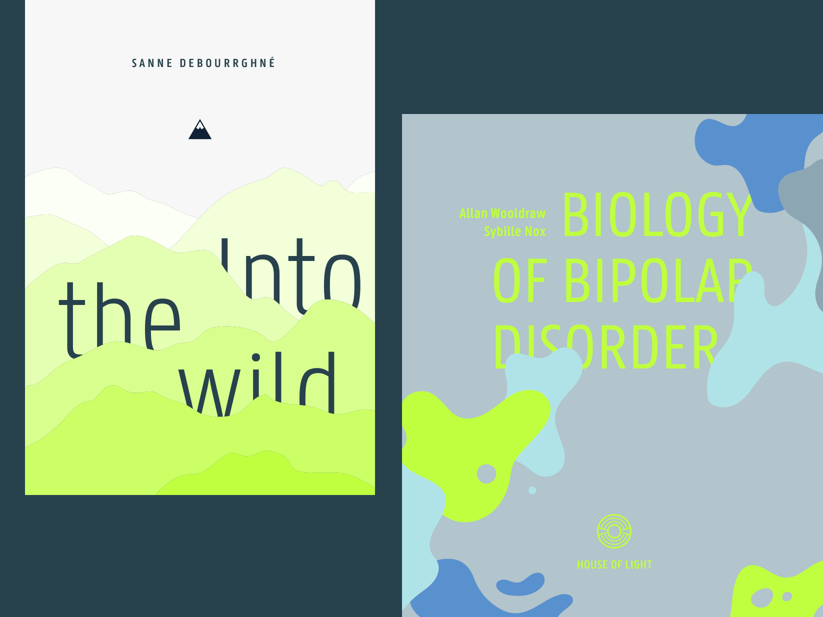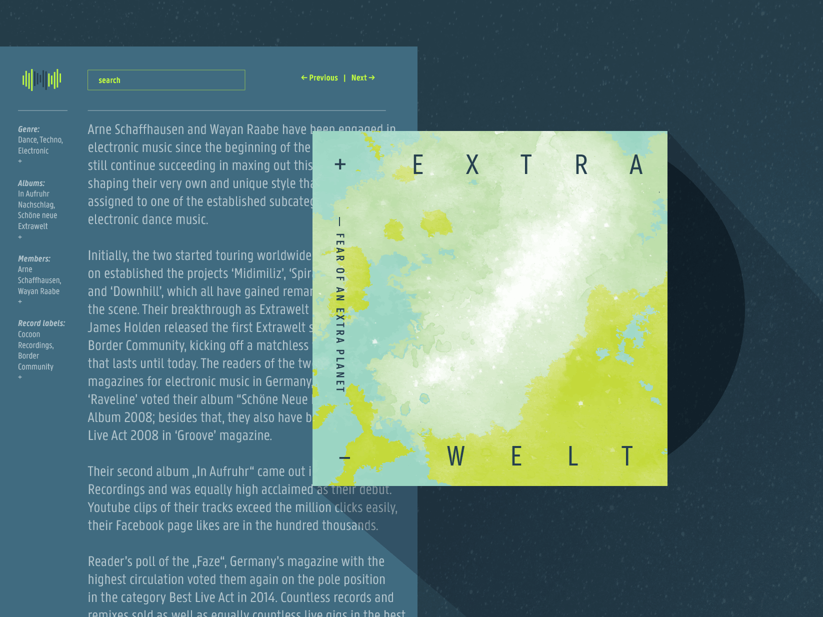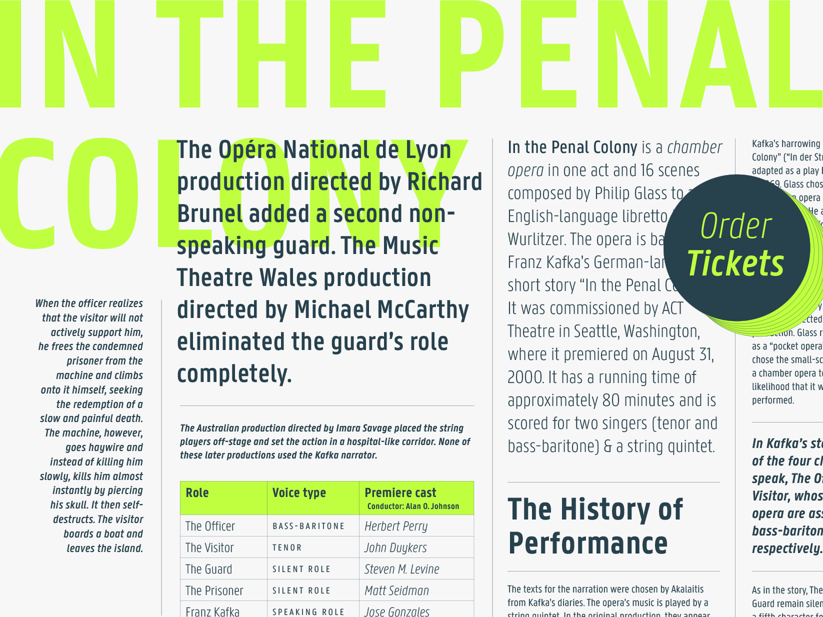
Panno Text Font
Panno Text Font is perfect for editorial layouts, magazine articles, book publishing, academic journals, newspaper columns, digital reading platforms, corporate reports, professional documentation, educational materials, and long-form content applications.
What makes Panno Text Font so exciting is its masterful optimization for extended reading experiences and exceptional text clarity across all media formats. This carefully engineered typeface features precisely balanced letterforms with optimal character spacing and sophisticated hinting that immediately enhance readability and reduce eye strain during prolonged reading sessions. The font's methodical construction and reader-focused design create an effortless reading experience that maintains engagement while supporting comprehension, making it ideal for projects where content consumption and information retention are paramount to success.
The Panno Text Font family typically includes comprehensive weight variations from light to bold, along with corresponding italic styles and small caps. Professional text font families frequently offer advanced OpenType features including contextual alternates, proportional figures, and extensive language support that ensure optimal typography across diverse publishing requirements and international applications.
The readability optimization of Panno Text Font makes it particularly effective for digital publishing platforms where screen rendering quality and user experience are crucial for audience retention. Content managers and UX designers will find this font especially valuable for applications requiring sustained attention and information processing efficiency.
What distinguishes Panno Text Font is its remarkable ability to remain invisible to readers while facilitating effortless information absorption. This sophisticated characteristic makes it suitable for both traditional print applications and modern digital environments where reading comfort directly influences engagement metrics.
Professional typographers appreciate that Panno Text Font brings scientific rigor to projects across industries including publishing, education, finance, and technology. Its reader-centric design and typographic sophistication make it indispensable for communications where content clarity and audience comprehension are business-critical requirements.
The evidence-based design principles behind Panno Text Font ensure consistent performance across various reading contexts, from intimate mobile screens to comprehensive technical documentation.